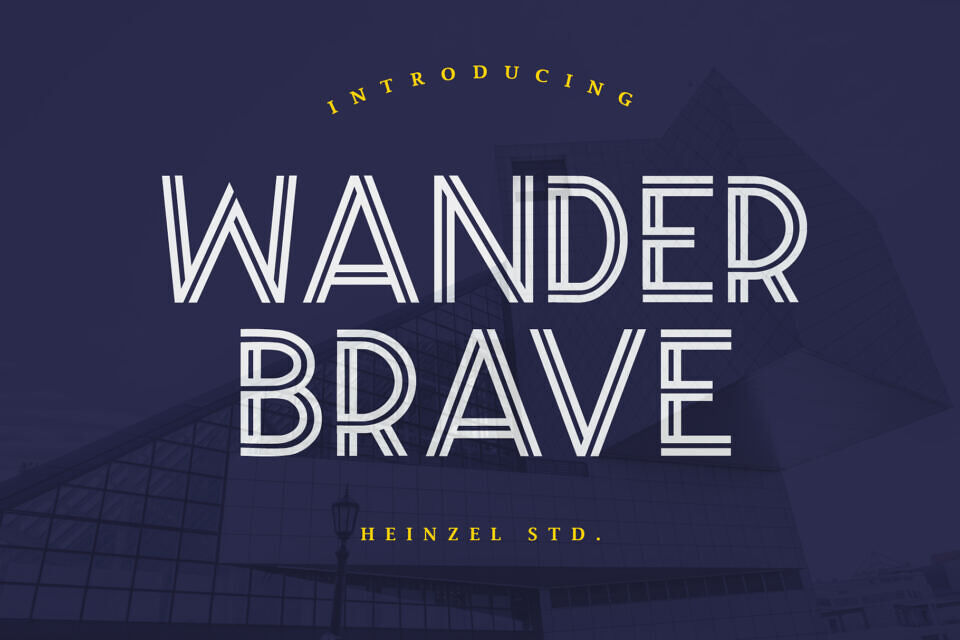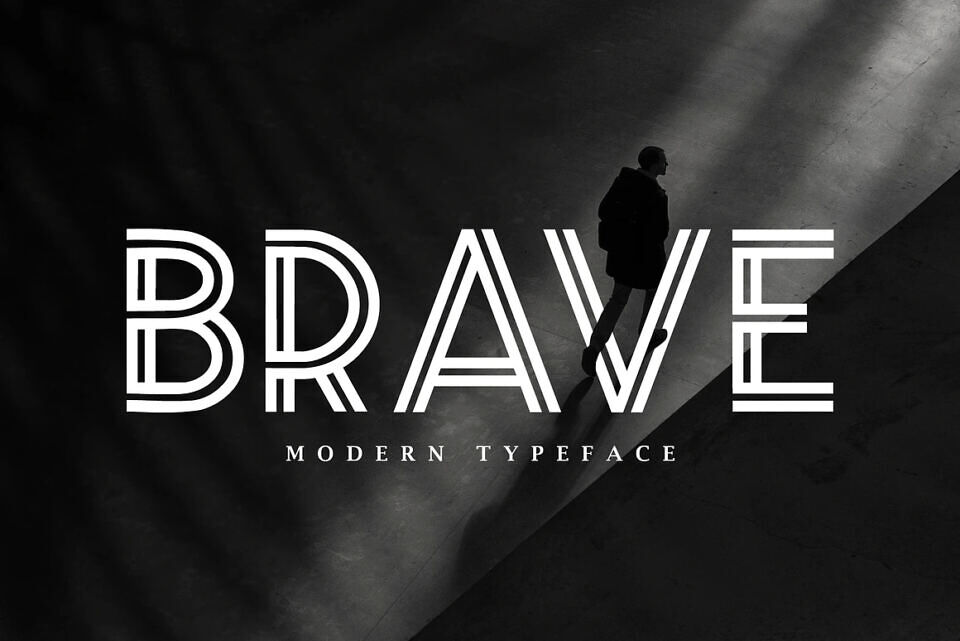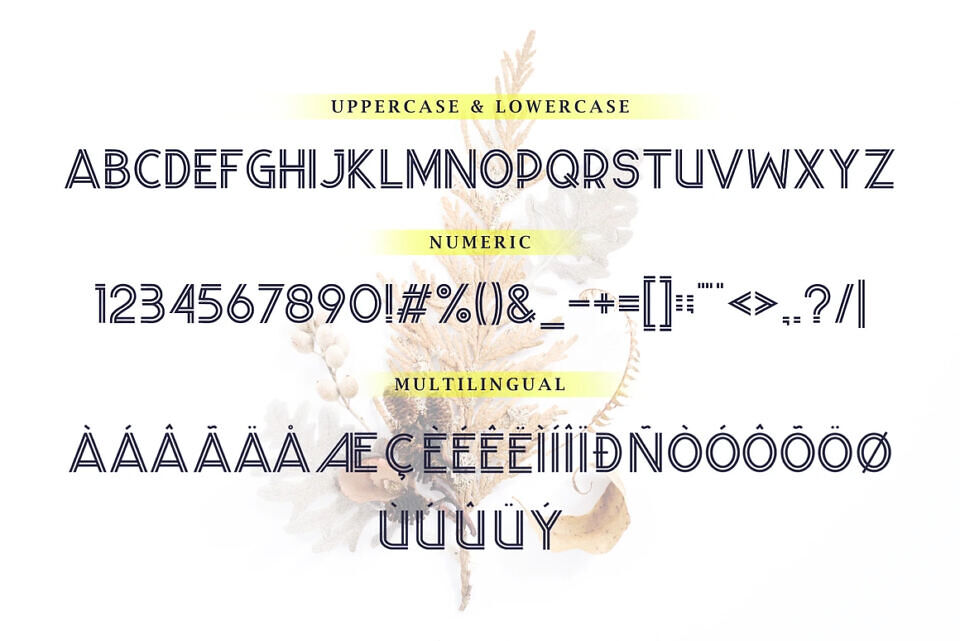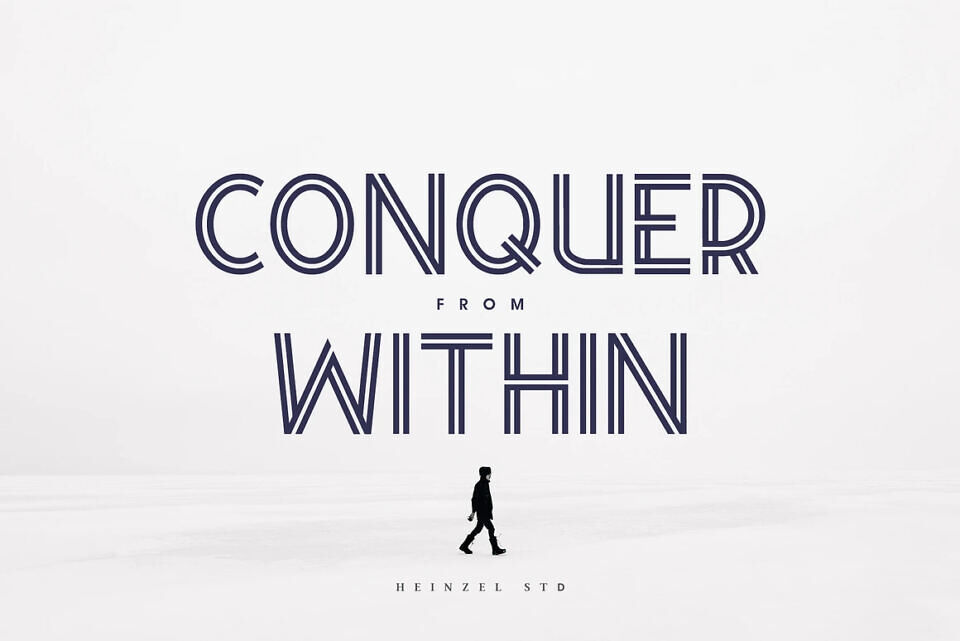
Wander Brave Font
Wander Brave Typeface is a unique typeface with a sporty, modern, adventurous edge.
Made for giving titles an extra punch, Brave packs a full set of capitals, numbers and punctuation.